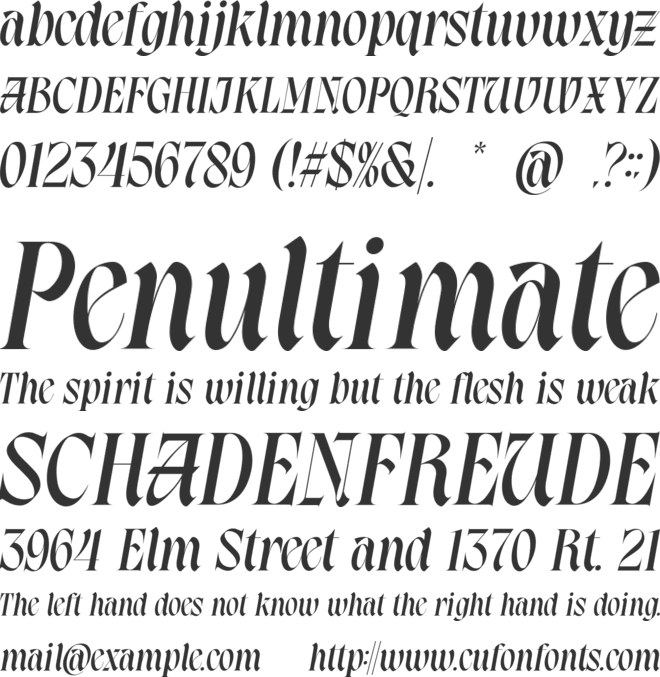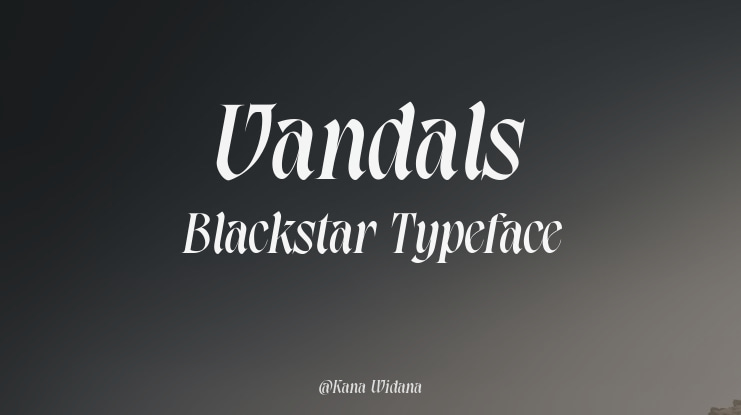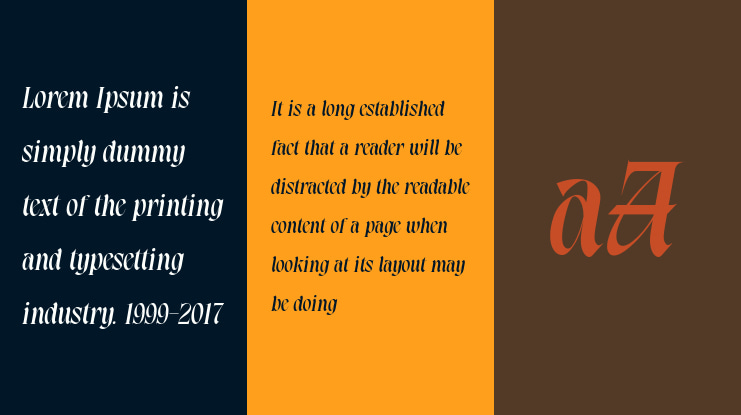
Vandals Blackstar Font
Vandals Blackstar: The Sovereign of Dark Gothic Typography
Unleash the chaos. Embrace the grandeur.
Introducing Vandals Blackstar, a typeface born from the collision of ancient imperial tradition and the rebellious spirit of modern streetwear. This is not merely a font; it is a visual weapon designed for those who dare to embrace the intensity of bold design.
Vandals Blackstar reimagines the classic Blackletter style, injecting it with a sharp, lethal elegance. It captures the essence of "Starfall Gothica"—a cosmic ruin where sharp, thorn-like terminals meet fluid, liquid-like swashes. It is the perfect balance between the stonework monumentalism of the past and the distorted energy of the future.